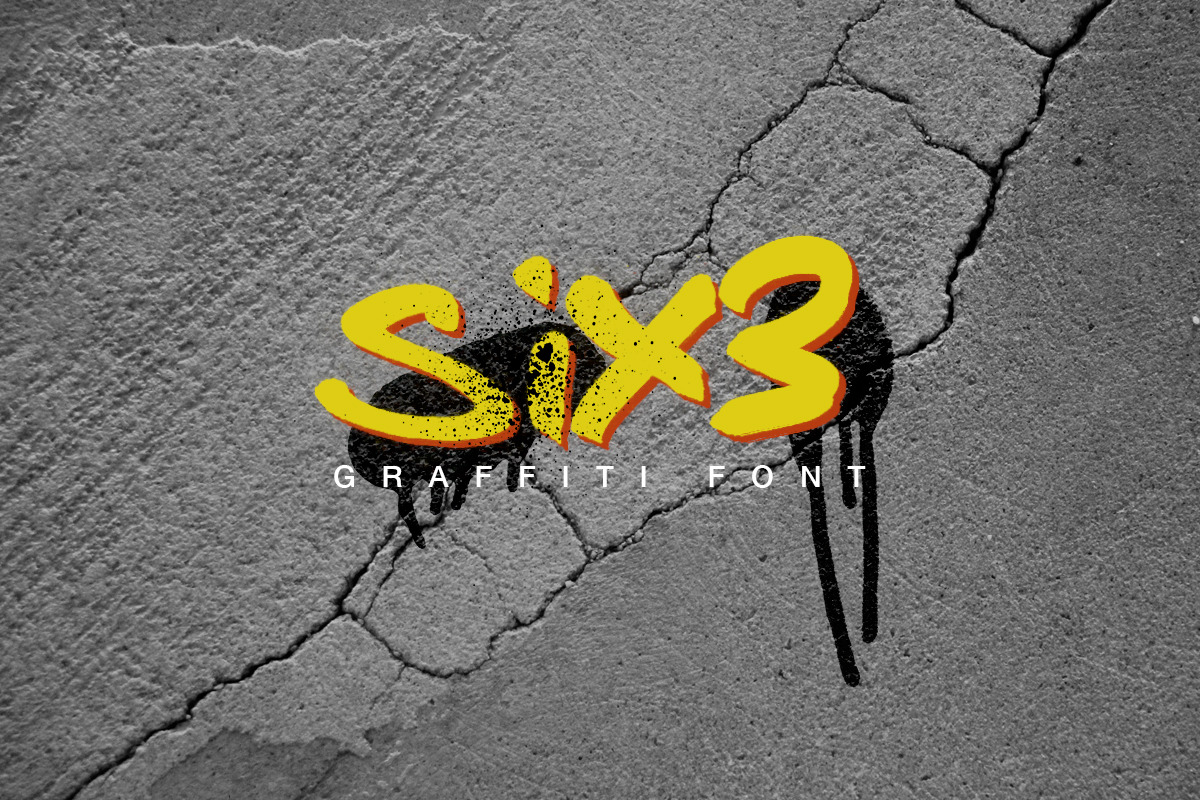
Six3 Graffiti Urban Tag Hip Hop Font
Six3 is an urban graffiti font ready to take your projects to the next level!
Inspired by the graffiti 'tags' you see on train tracks when on the train.